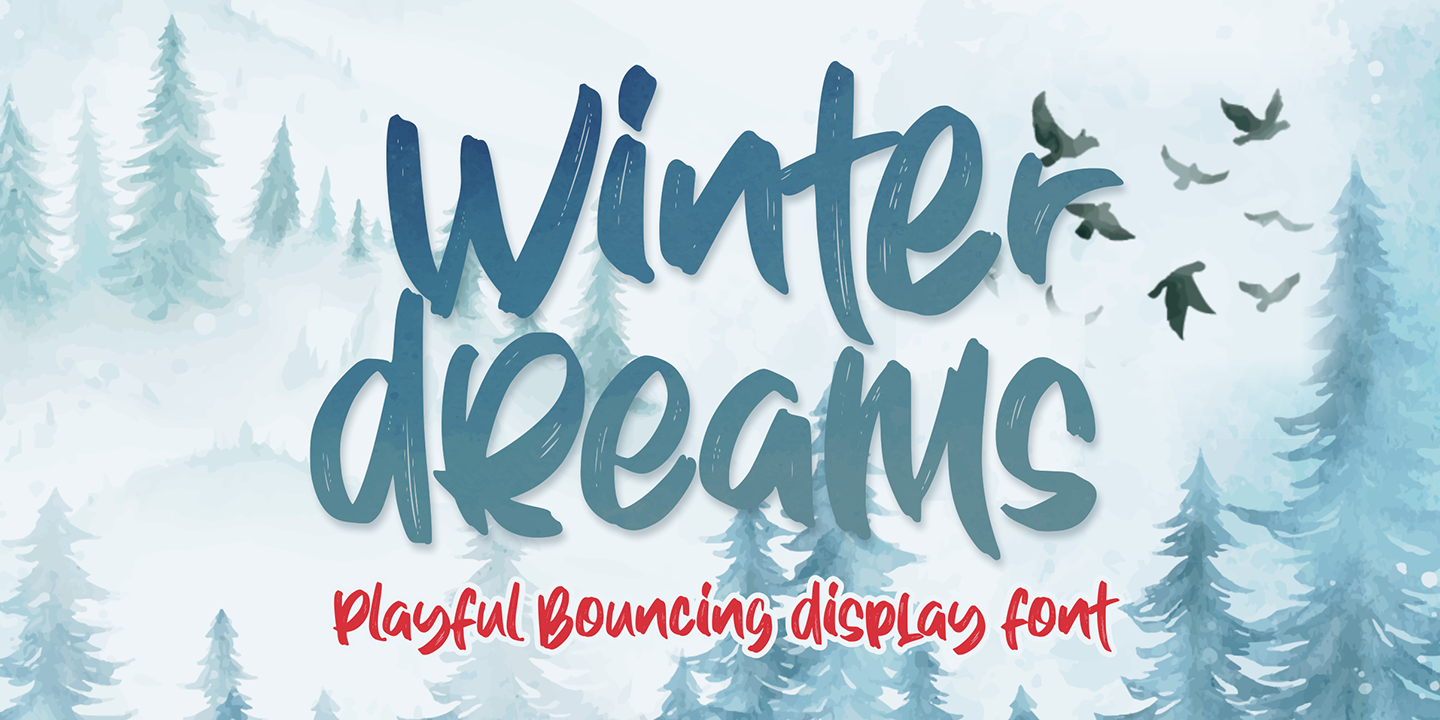
Winter Dreams Font is perfect for seasonal holiday campaigns, winter wedding invitations, Christmas greeting cards, cozy café branding, winter sports promotions, holiday packaging designs, festive social media graphics, and magical children's book covers.
What makes Winter Dreams Font exciting is its enchanting ability to capture the serene beauty and magical atmosphere of winter wonderlands. This captivating typeface combines elegant curves with frost-inspired details, creating letters that evoke feelings of warmth, comfort, and seasonal joy. The font's delicate character variations and winter-themed aesthetic make it an ideal choice for brands and designers seeking to create memorable seasonal experiences and cozy brand connections.
Winter Dreams Font family includes Regular, Bold, Light, Script, Condensed, and Outline variations, plus decorative snowflake elements and seasonal ornaments. Each style maintains the font's magical winter character while providing comprehensive flexibility for creating enchanting holiday design systems and seasonal brand communications.
Seasonal design specialists consistently choose Winter Dreams Font Free Download for projects requiring authentic winter charm and festive appeal. This remarkable typeface has become a favorite among holiday marketers, seasonal brands, and event planners worldwide. The font's ability to convey warmth and magical winter atmosphere makes it perfect for brands operating in seasonal markets and holiday-focused industries.
The design philosophy behind Winter Dreams Font emphasizes seasonal elegance and cozy sophistication. Its letterforms feature gentle curves and delicate details that mirror the graceful patterns of falling snow and frost formations. The font's distinctive elements include subtle flourishes and winter-inspired character variations that create immediate emotional connection with audiences seeking seasonal comfort and holiday magic.
Creative agencies specializing in seasonal marketing frequently select Winter Dreams Font for clients requiring authentic winter storytelling and holiday communication. The font's versatility allows seamless integration into comprehensive seasonal branding systems, from retail holiday campaigns to intimate winter event materials, ensuring consistent brand personality across all winter and holiday touchpoints.
The technical craftsmanship of Winter Dreams Font demonstrates meticulous attention to seasonal typography requirements. Advanced OpenType features include contextual alternates and seasonal ligatures that enhance creative possibilities for holiday designs. The font's comprehensive character set and international language support make it suitable for global winter campaigns requiring both seasonal charm and technical excellence.